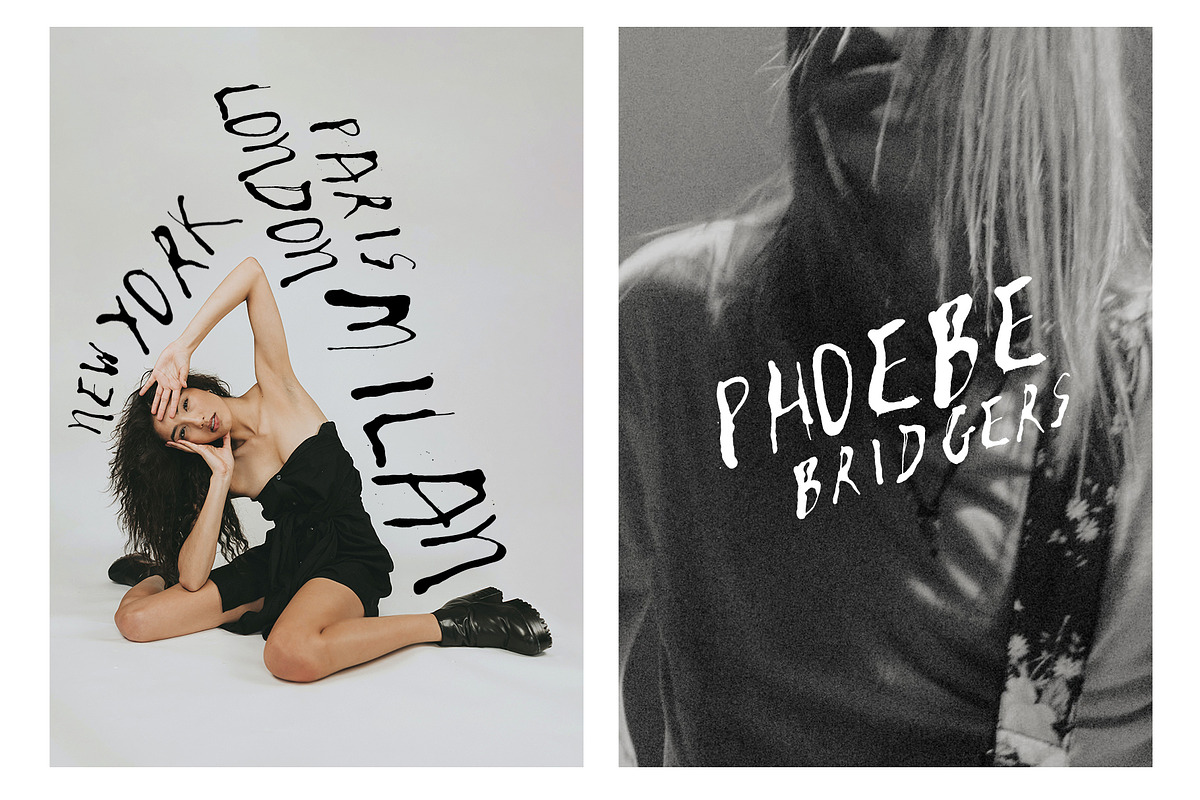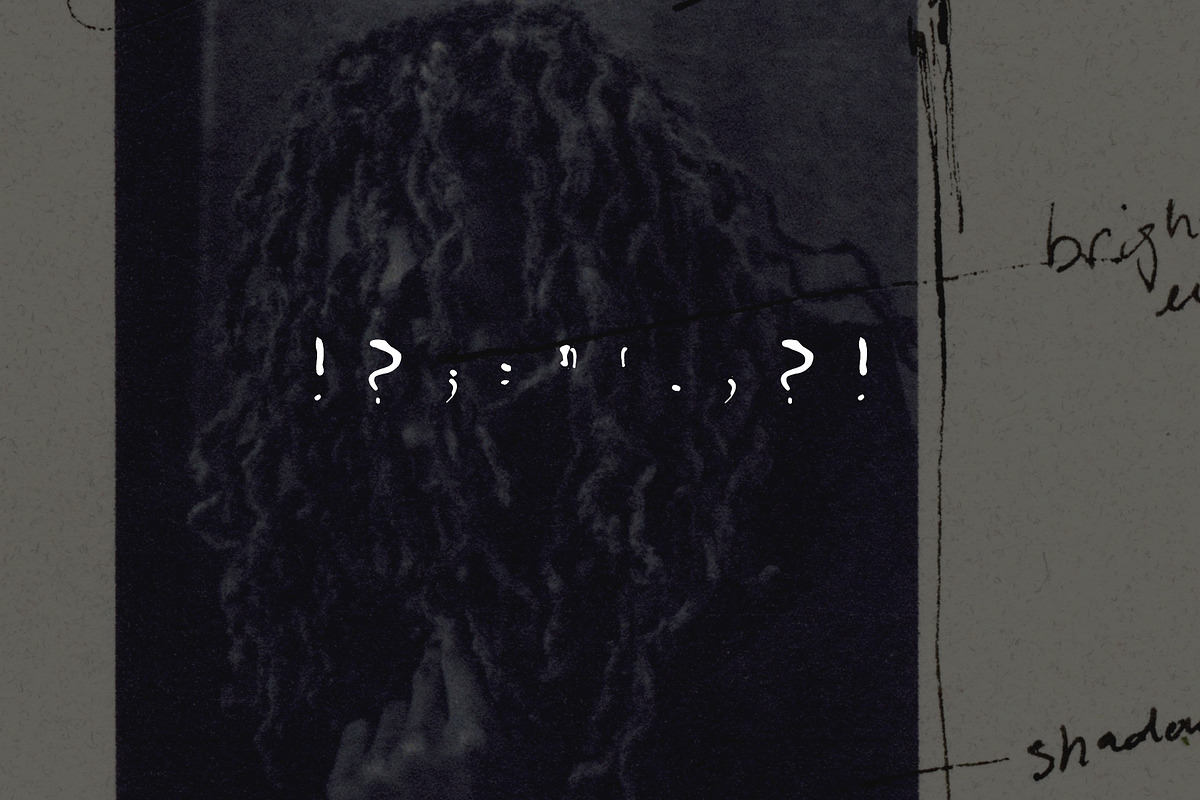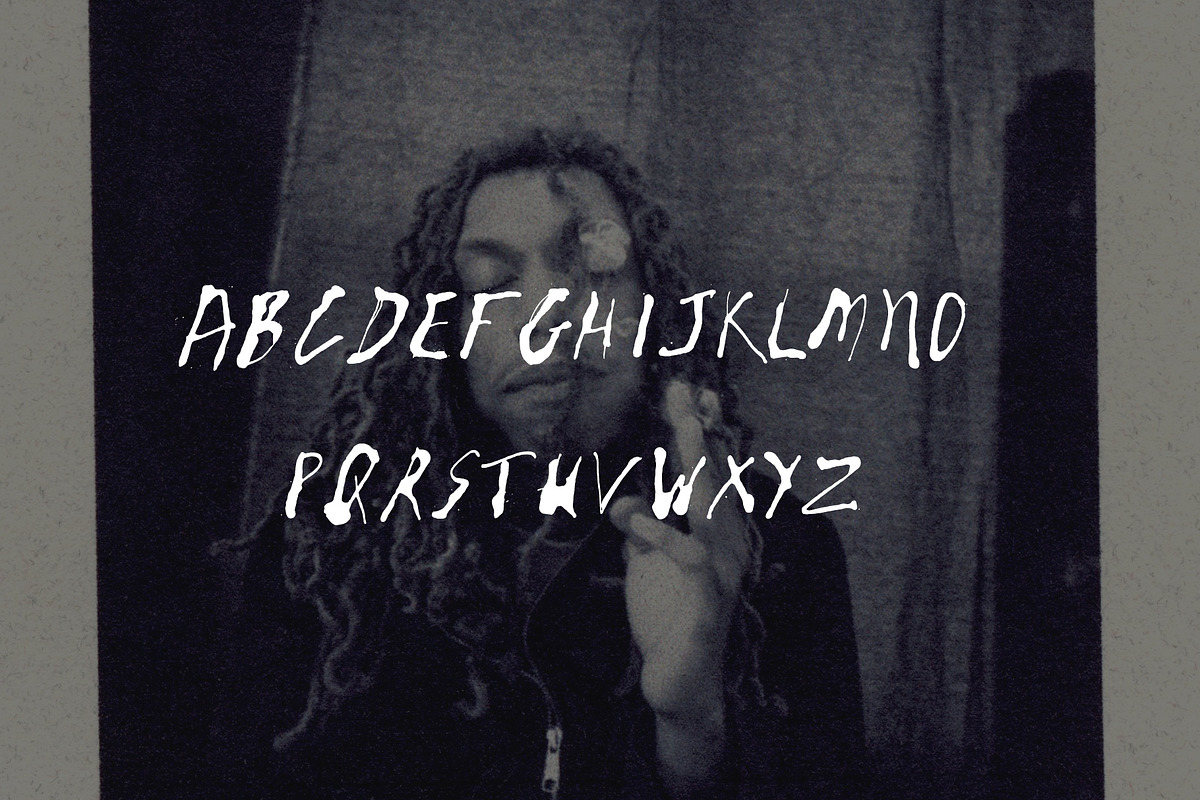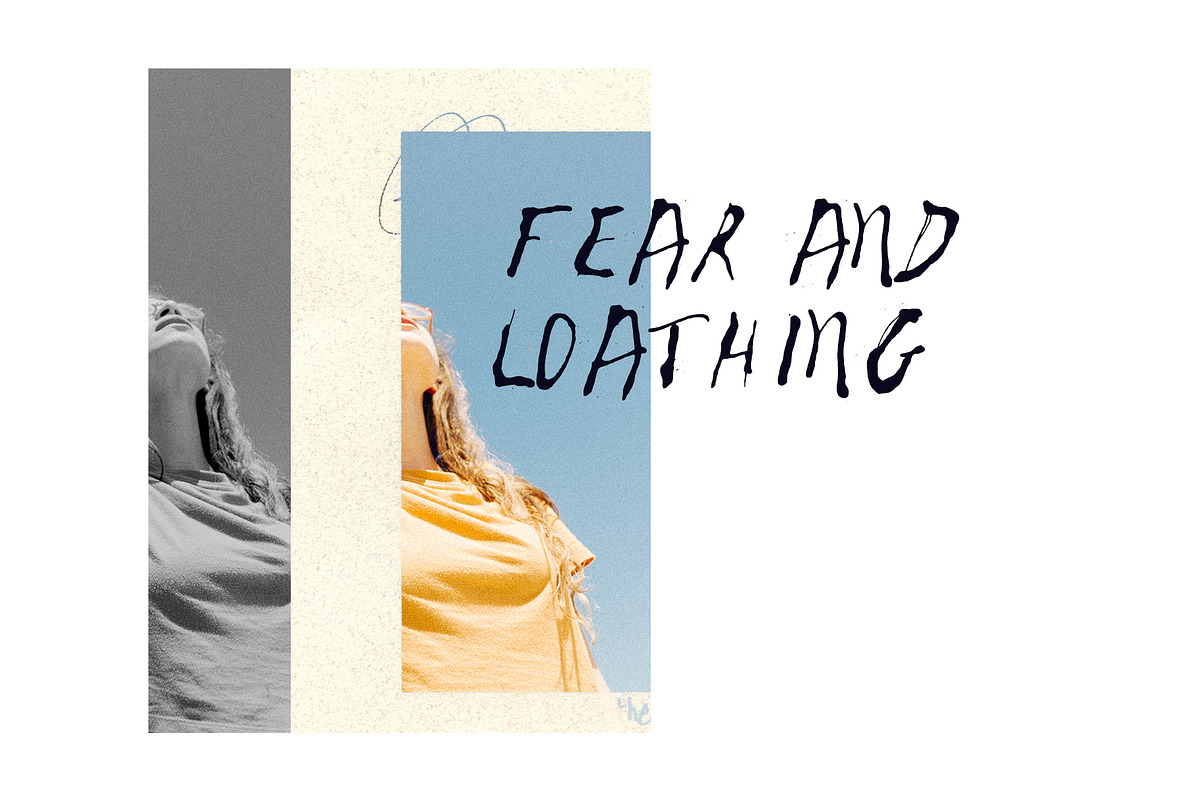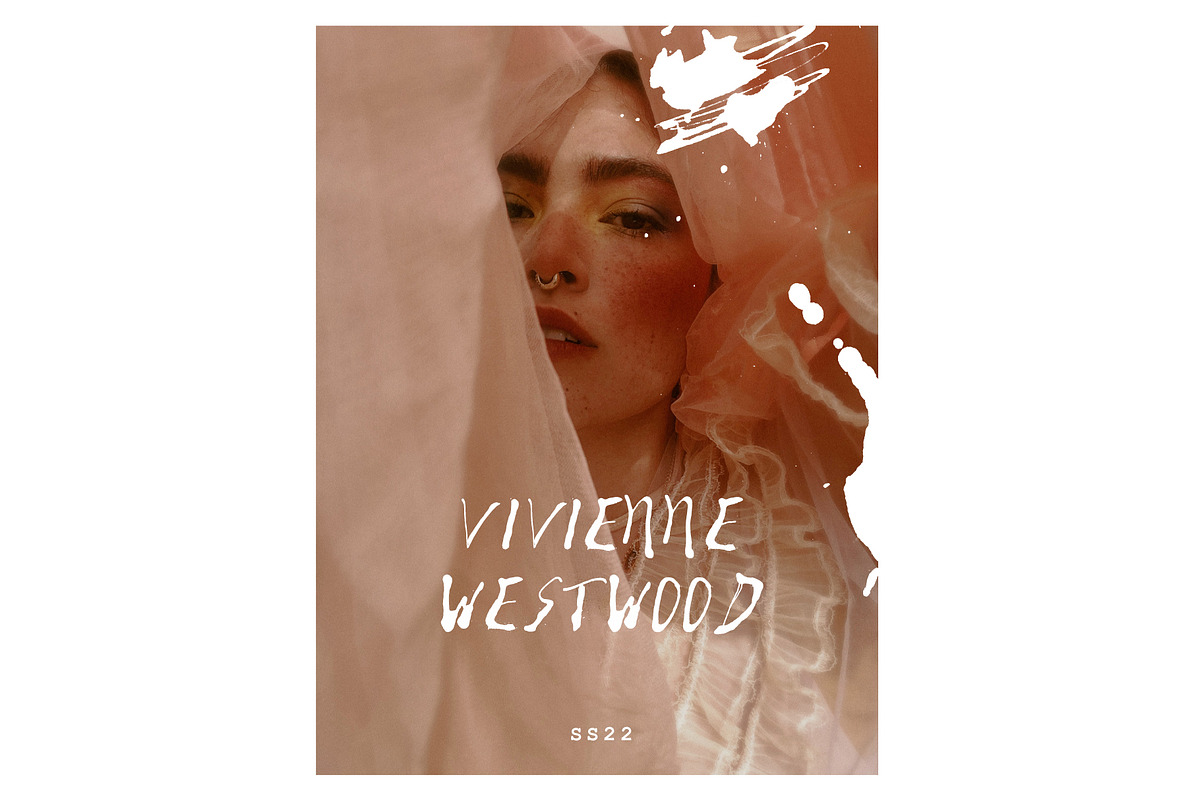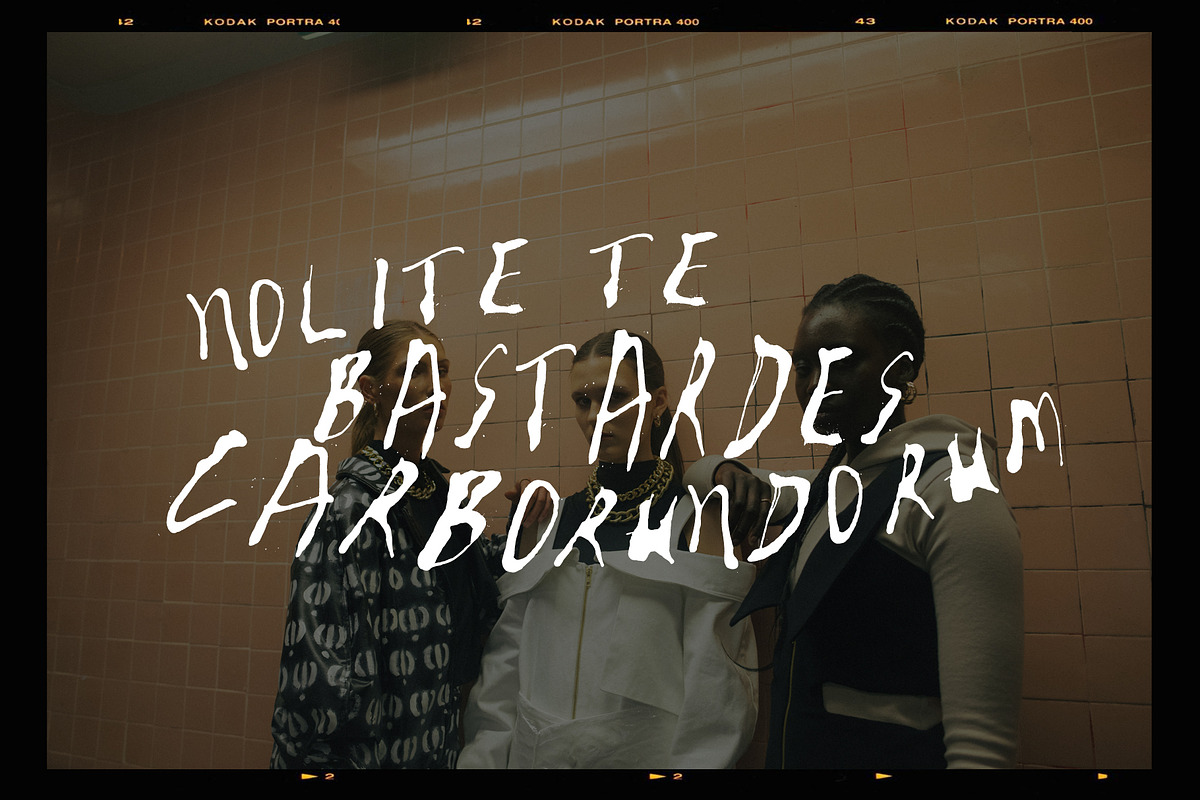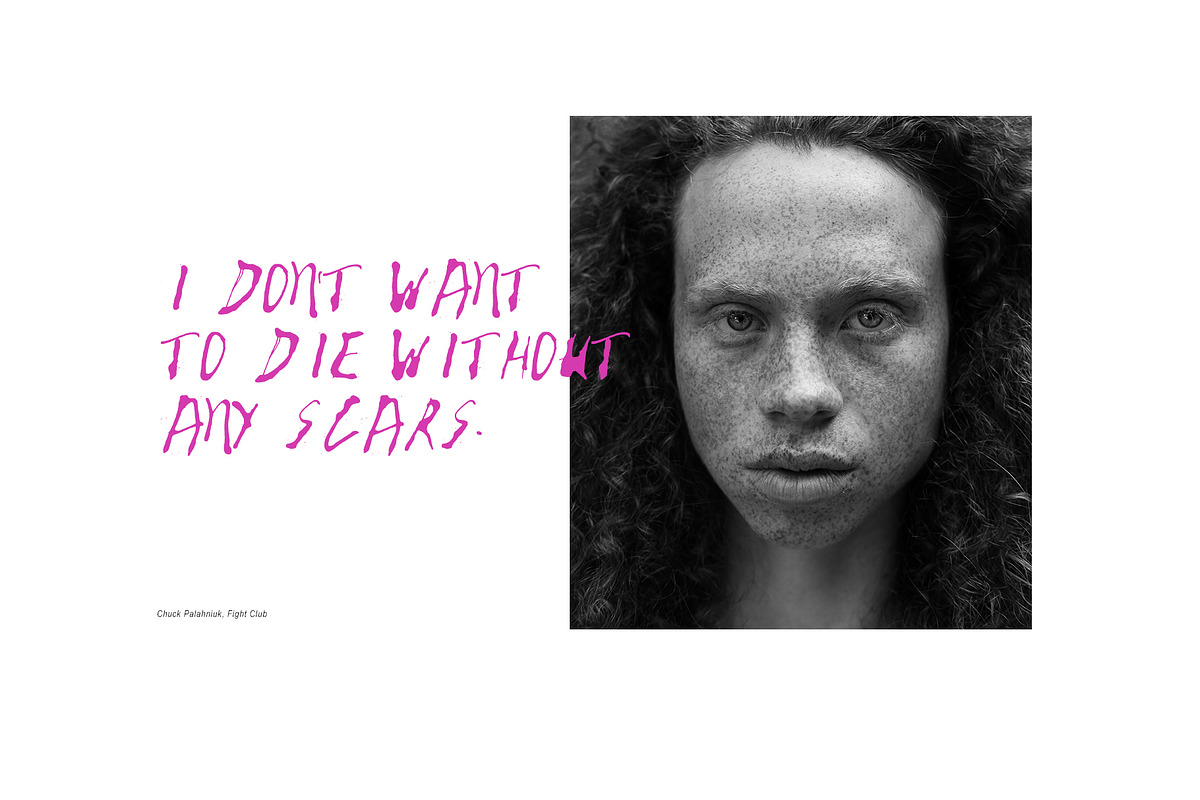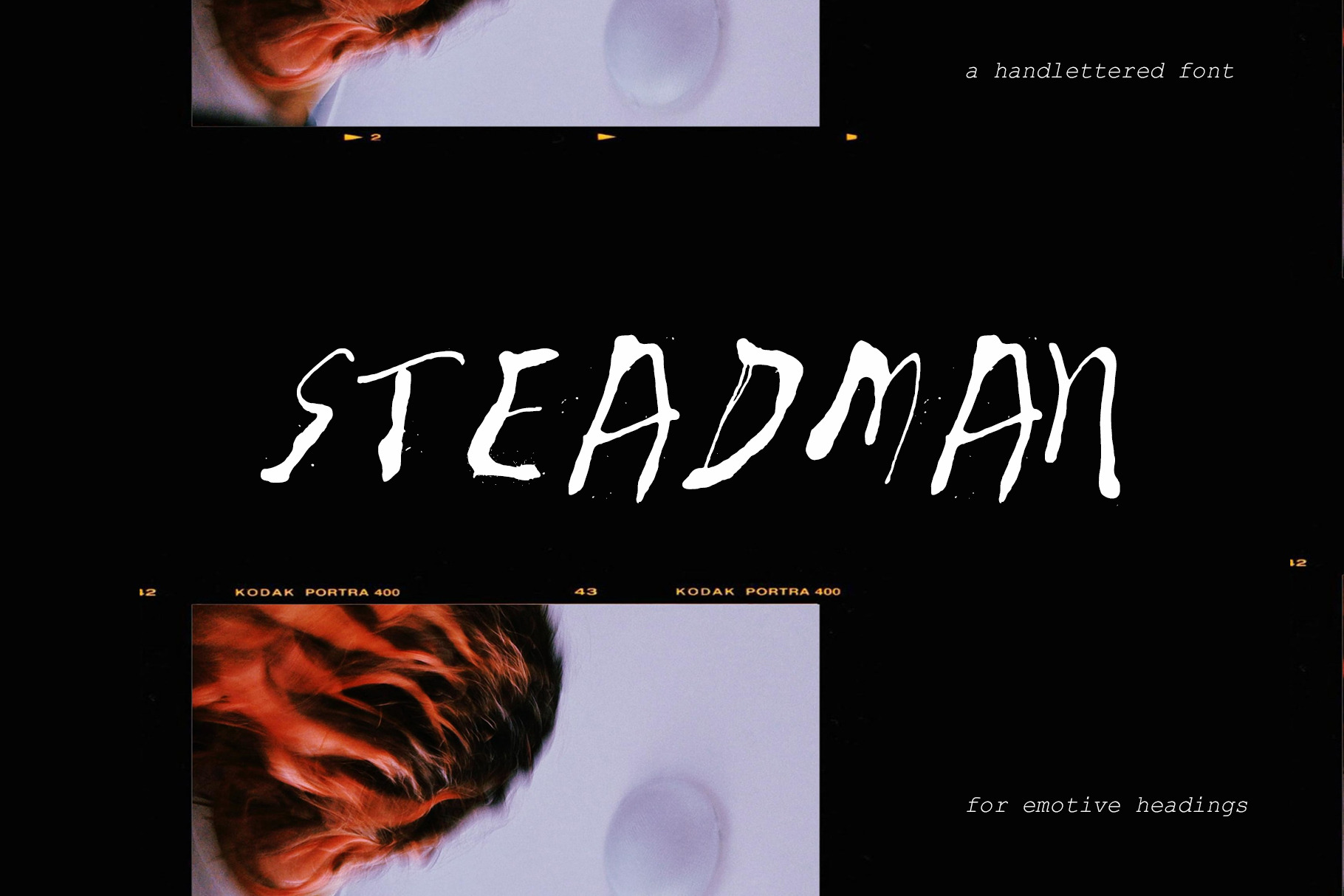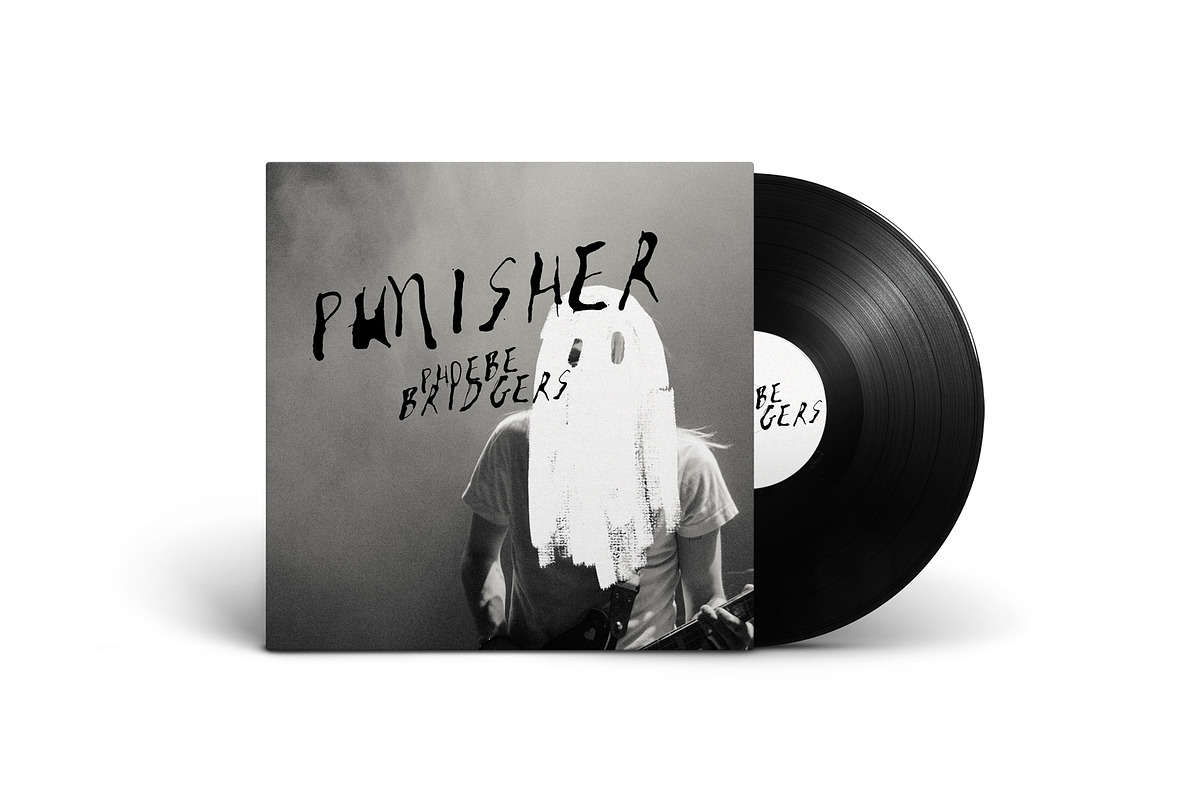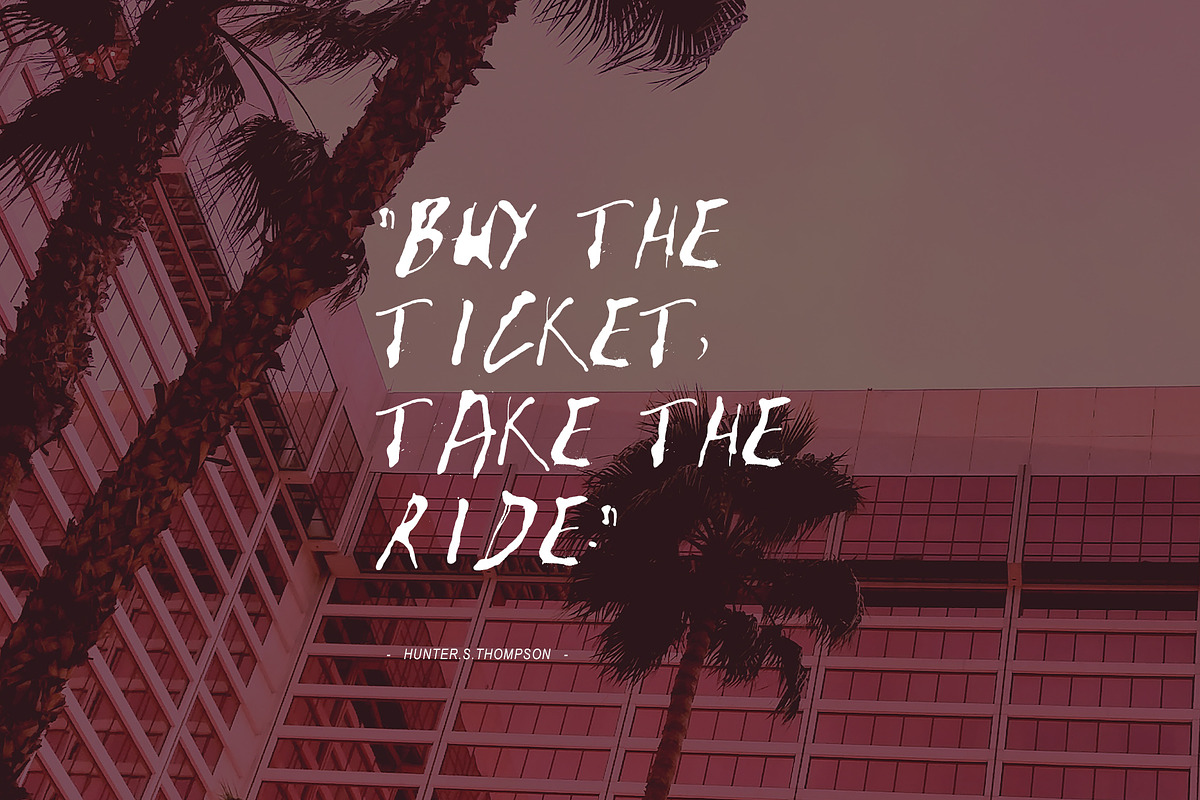
STEADMAN | a hand lettered ink font
Introducing STEADMAN - a truly unique hand lettered font, inspired by the iconic style of British Illustrator, Ralph Steadman. Will add an authentic, illustrated feel to your project.
A grungy, expressive font in ink. Each letter painted by hand, relying on the organic results of a pipette of ink on paper.
Perfect for stand out headings and projects that require dynamic and emotive lettering like book covers, posters, editorial layouts, album covers, manifestos and lookbooks.